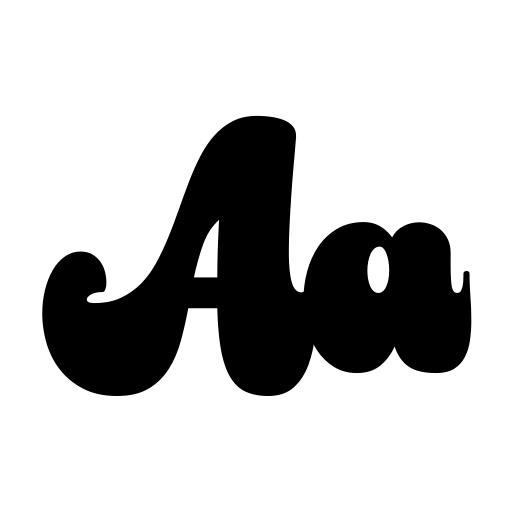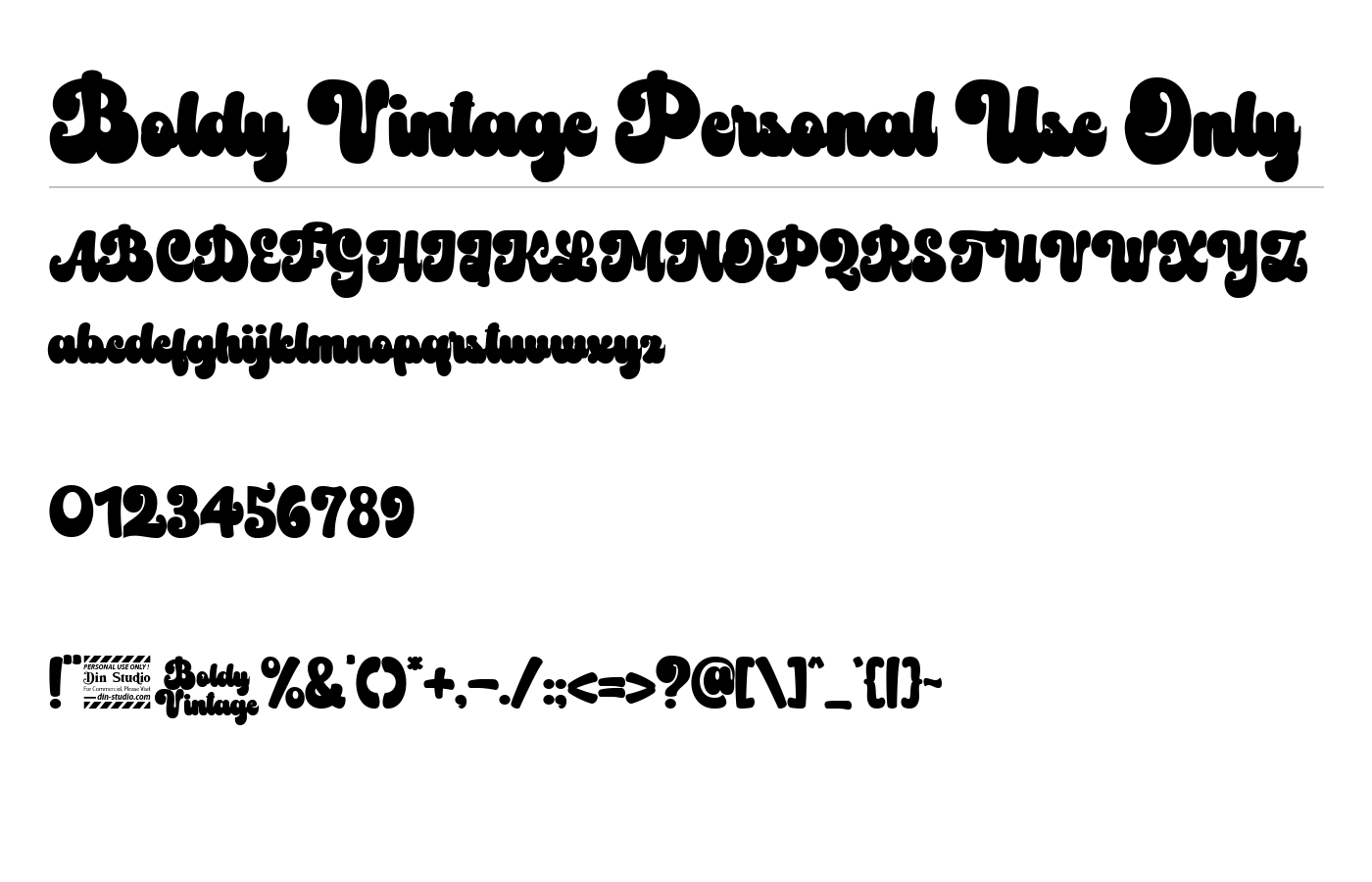
Boldy Vintage Personal Use Only is a bold, retro-inspired script font with thick, rounded strokes and playful, curvy letterforms that evoke a cheerful vintage charm. Its heavy weight and tightly spaced characters make it ideal for eye-catching headlines, logos, and packaging where a fun, nostalgic mood is desired. This font works best in designs aiming to convey a sense of warmth and personality, perfect for boutique branding or creative print projects.
Boldy Vintage Personal Use Only Font
About Boldy Vintage Personal Use Only Font
| Font family | Boldy Vintage Personal Use Only Font |